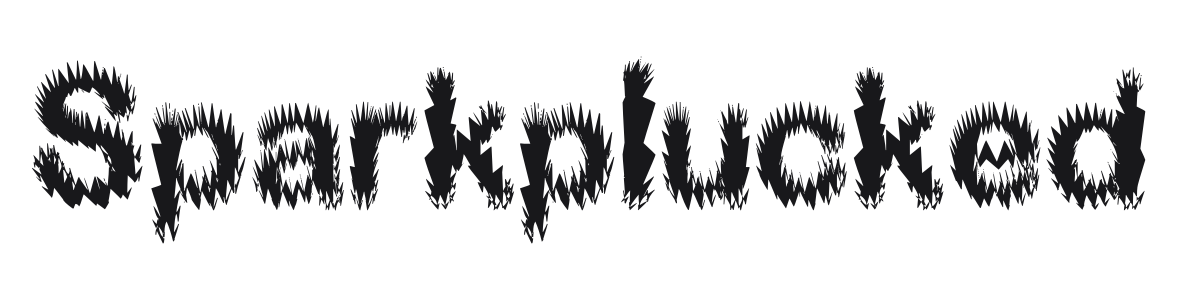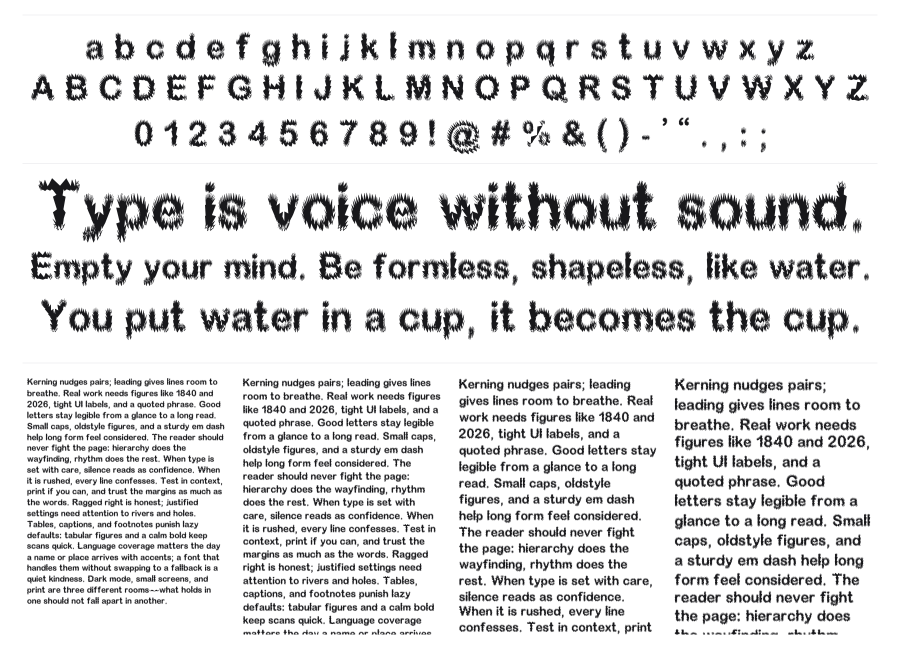
Sparkplucked
Sparkplucked is a heavily eroded display font covered in dense jagged spikes that erupt from every surface of each character. The base structure is a sturdy, chunky sans-serif, but the extreme texture transforms it into something wild and almost organic, like letters consumed by flames or crystal growths. It has real presence at large sizes for horror, metal, or high-energy creative work.